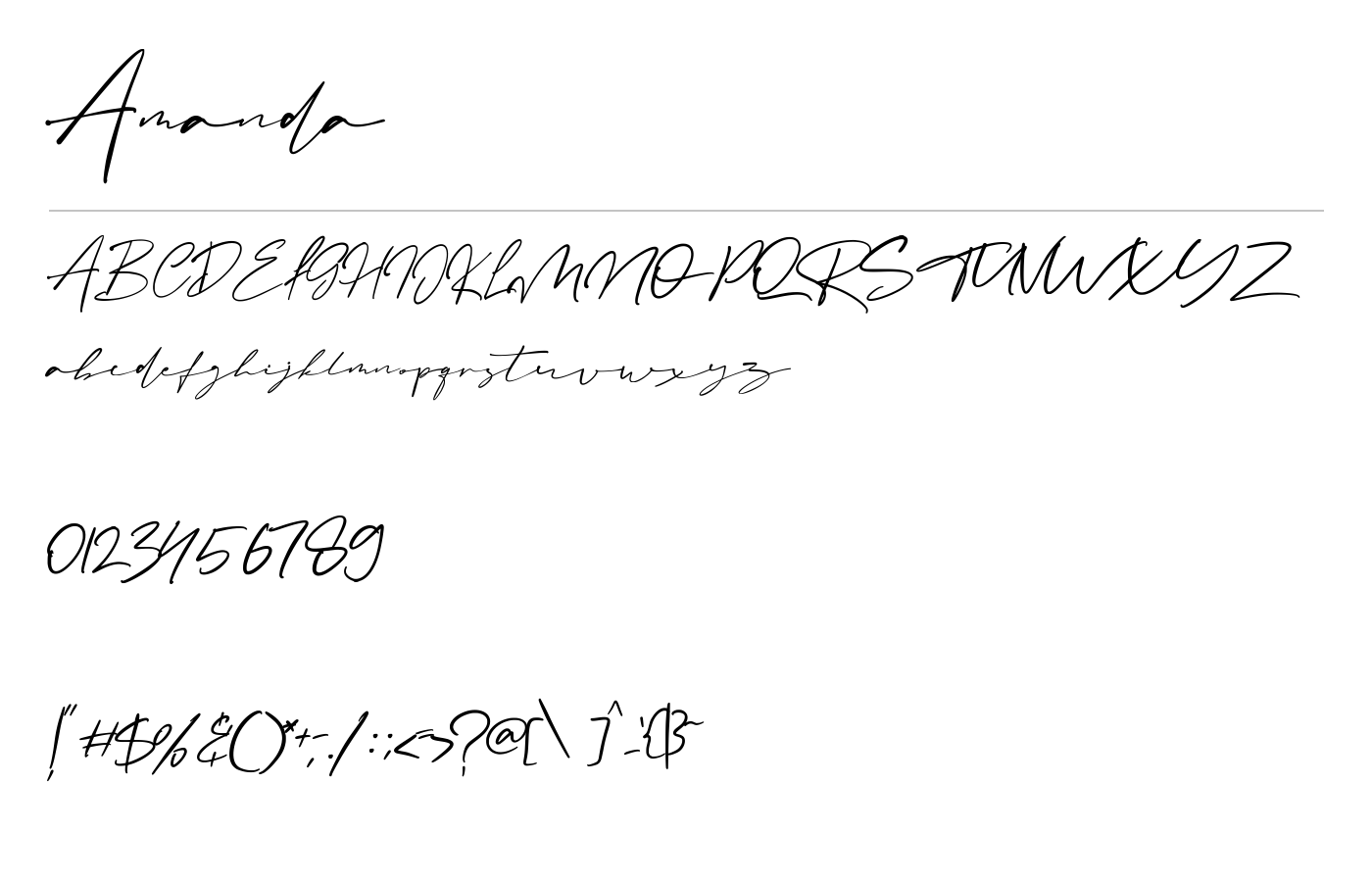
Amanda Font
About Amanda Font
Amanda Font is a delicate, handwritten script with a light, airy feel and elegant, flowing strokes that mimic natural cursive writing. Its slender lines and casual style make it perfect for personal branding, invitations, and creative projects that seek a warm, intimate, and stylish touch. This font works well in contexts where a sophisticated but approachable handwritten look is desired.